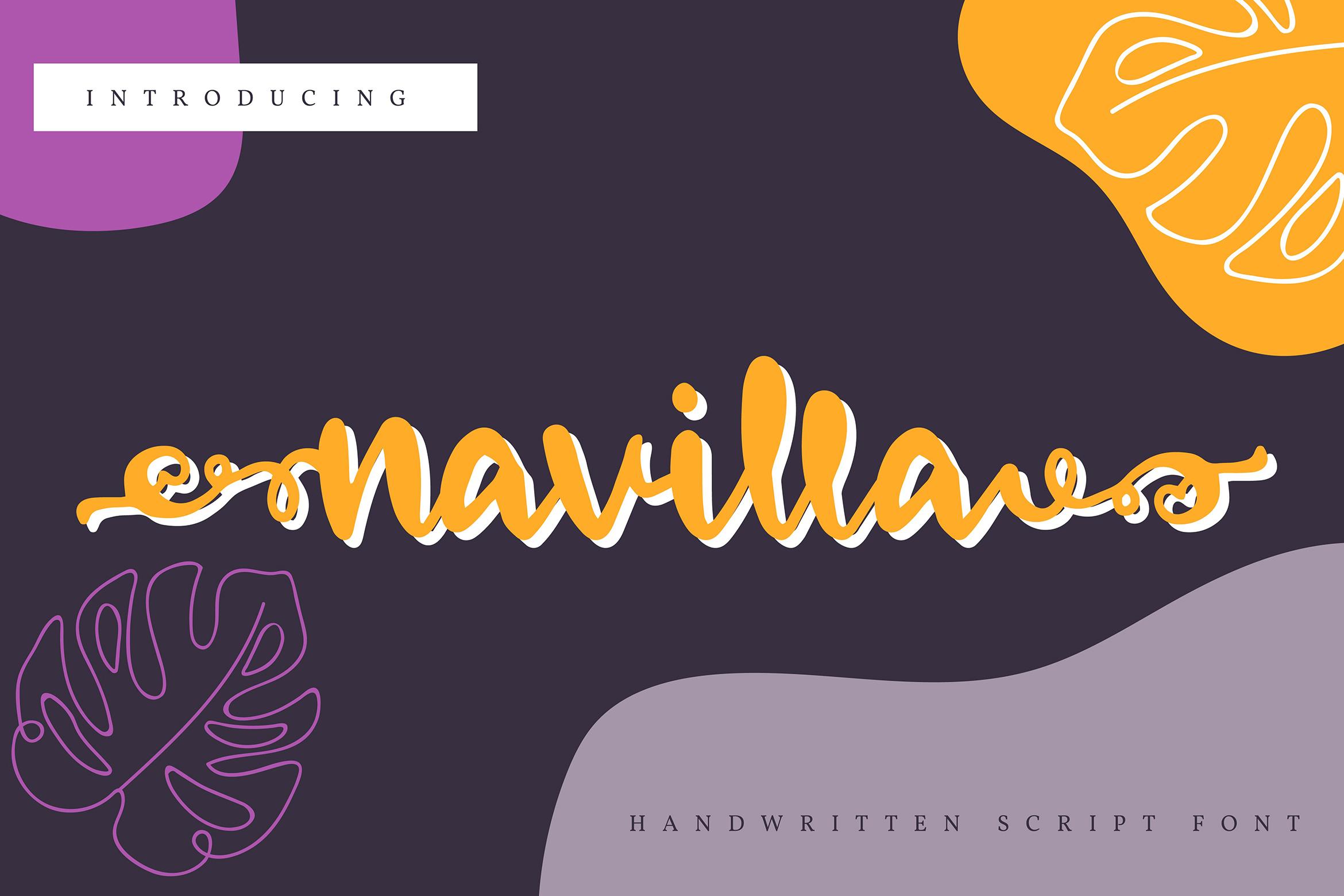
Navilla Font Description
Navilla is a stylish and graceful script font. It looks ravishing on wedding invitations, thank you cards, quotes, greeting cards, logos, business cards and every other design which needs a personalized touch. This font is PUA encoded which means you can access all of the glyphs and swashes with ease!